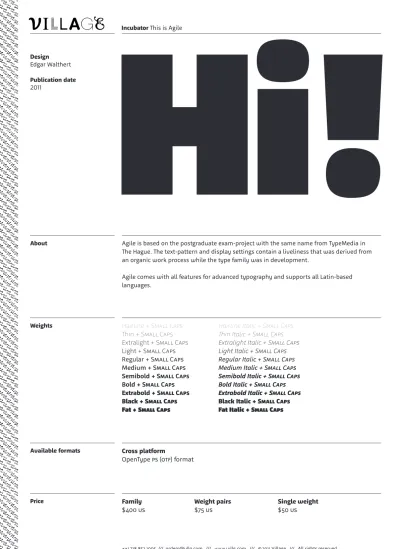
Design
Edgar Walthert
About
Agile is based on the postgraduate exam-project with the same name from TypeMedia in
The Hague. The text-pattern and display settings contain a liveliness that was derived from
an organic work process while the type family was in development.
Agile comes with all features for advanced typography and supports all Latin-based
languages.
Weights
Hairline + Small Caps
Hairline Italic + Small Caps
Thin + Small Caps
Thin Italic + Small Caps
Extralight + Small Caps
Extralight Italic + Small Caps
Light + Small Caps
Light Italic + Small Caps
Regular + Small Caps
Regular Italic + Small Caps
Medium + Small Caps
Medium Italic + Small Caps
Semibold + Small Caps
Semibold Italic + Small Caps
Bold + Small Caps
Bold Italic + Small Caps
Extrabold + Small Caps
Extrabold Italic + Small Caps
Black + Small Caps
Black Italic + Small Caps
Fat + Small Caps
Fat Italic + Small Caps
Basic uppercase
Basic small caps
Basic lowercase
Currency symbols
Discretionary ligatures
Fractions
Punctuation & symbols
Proportional oldstyle
Tabluar oldstyle
Superscript / superior
Proportional lining
Tabluar lining
Subscript / inferior
Proportional small caps
Uppercase
Small caps
Lowercase
Ligatures
Alternate forms: ‘a’ (sso1)